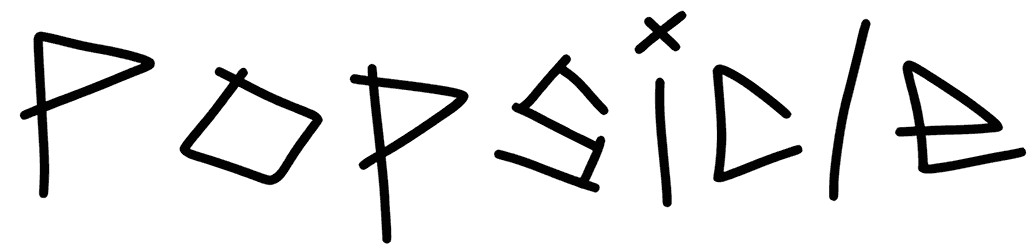
Popsicle Font
Popsicle is a kid-friendly script font that can always keep your designs young and warm. The irregular appearance of this emo font with crooked lines makes it look like children’s handwriting and captures the heart of ev…
Popsicle is a kid-friendly script font that can always keep your designs young and warm. The irregular appearance of this emo font with crooked lines makes it look like children’s handwriting and captures the heart of every viewer. For this reason, if you are looking to put the purity and sincerity of children in your business card, packaging, or even advertisements, you can borrow from this script font.